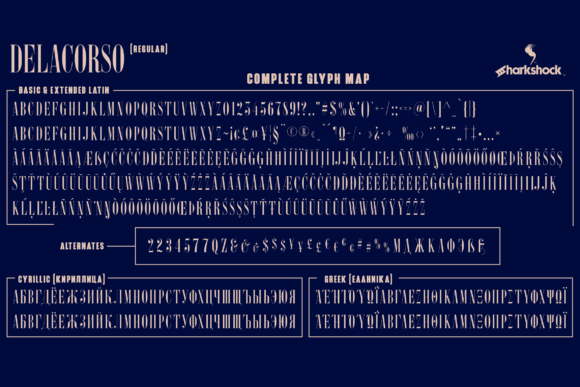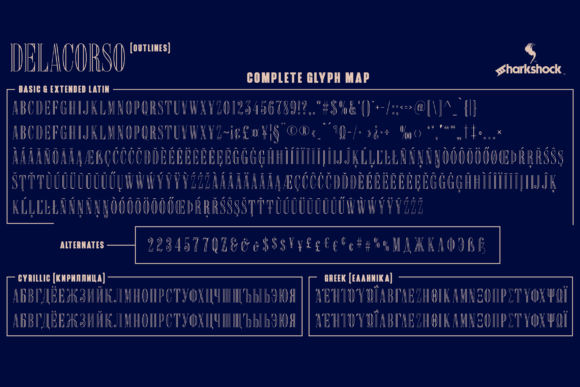
Introduction to Delacorso Font
The Delacorso is an elegant, all-caps display font designed with luxury in mind.
Its inspiration comes from the many high end stores that line New Yorkโ€™s 5th Avenue A tall cap height combined with broad strokes and hairline serifs produce a striking contrast.
Key Features of Delacorso Font